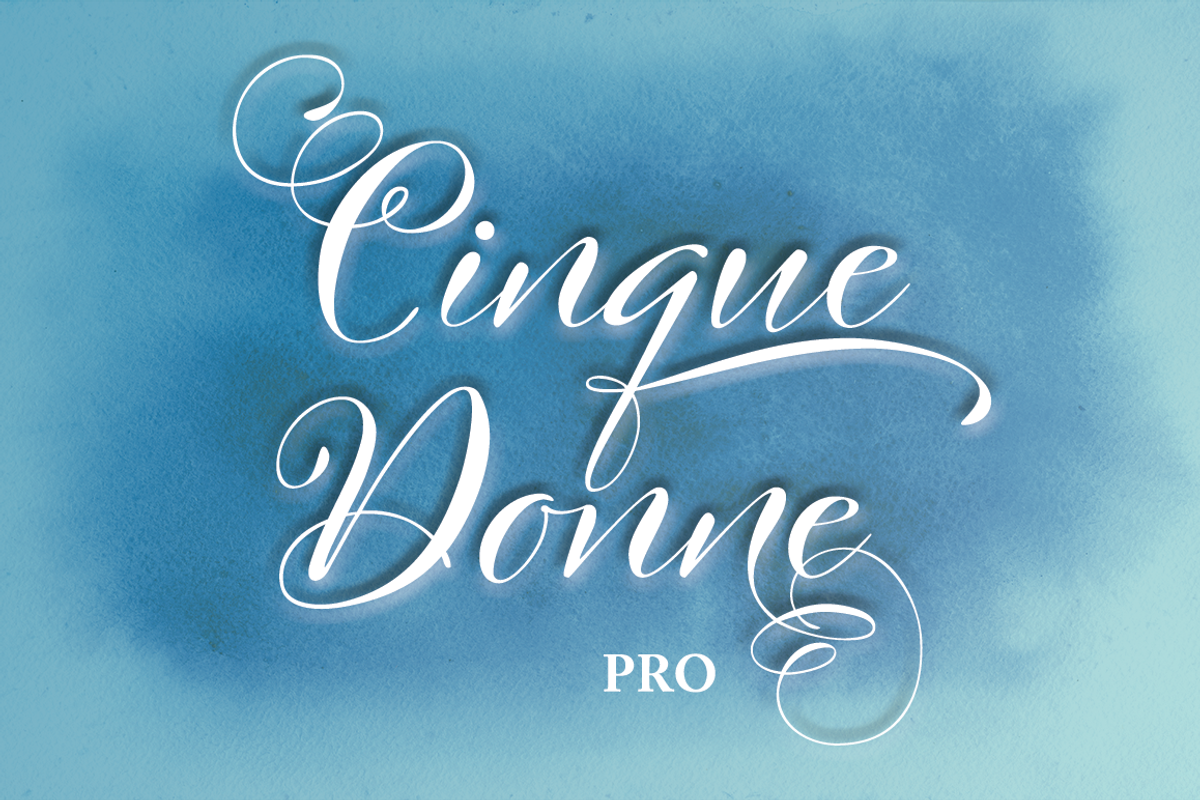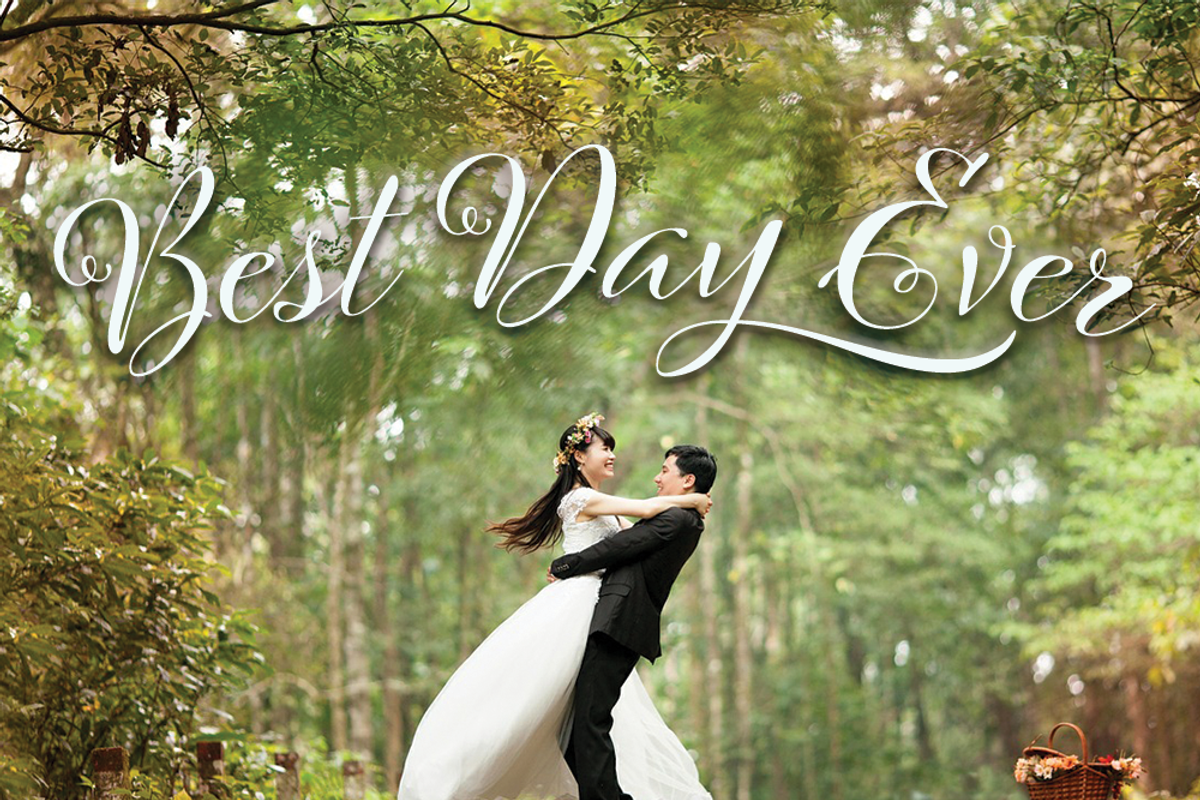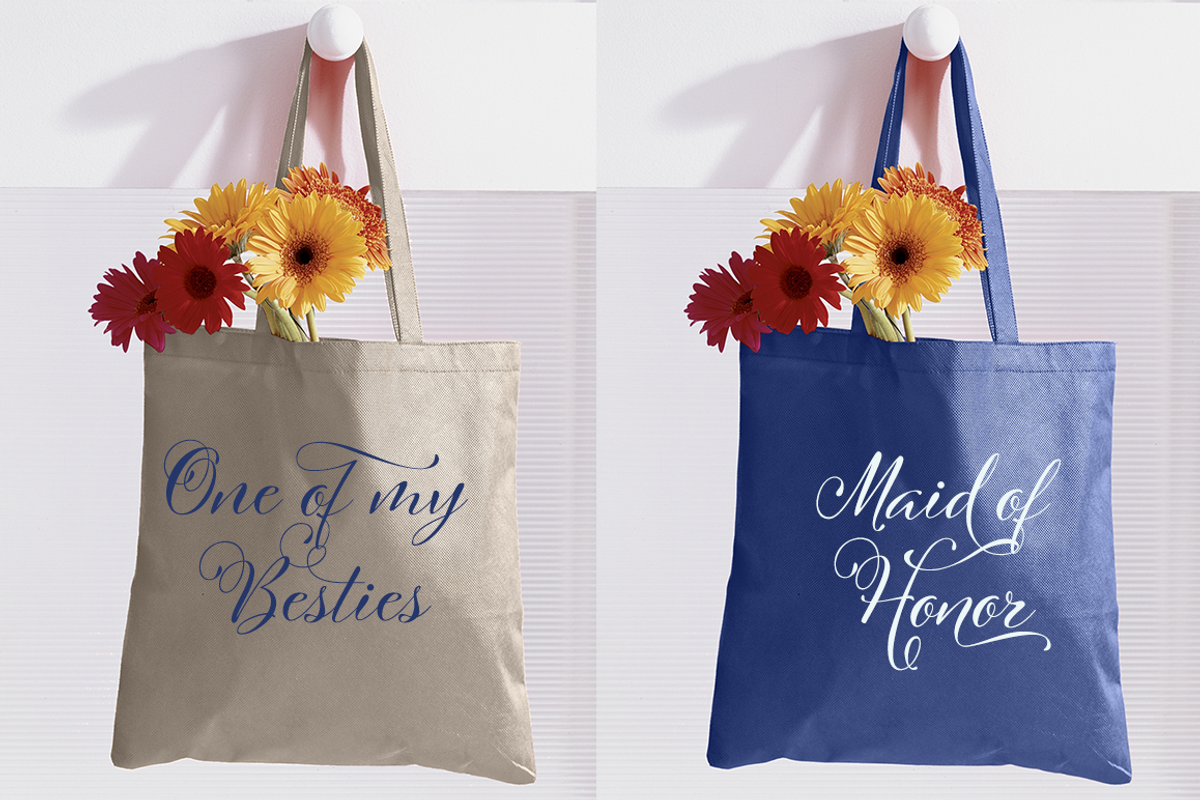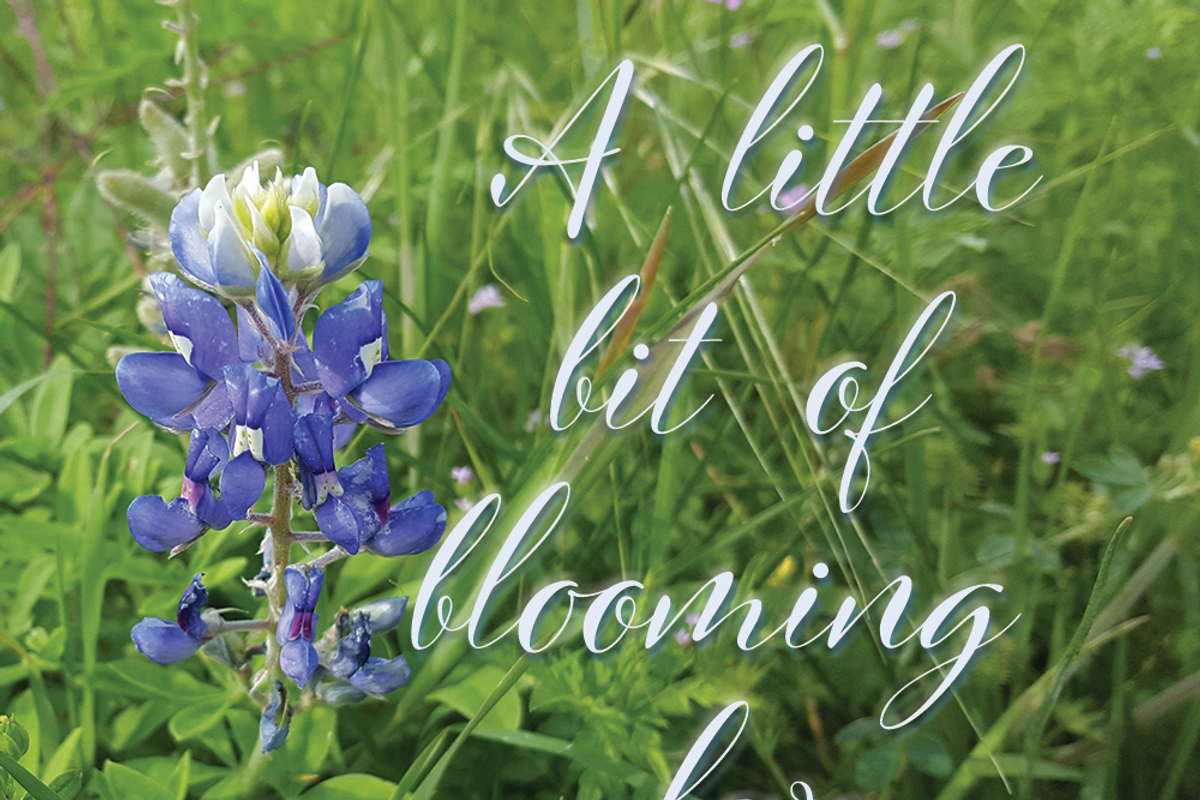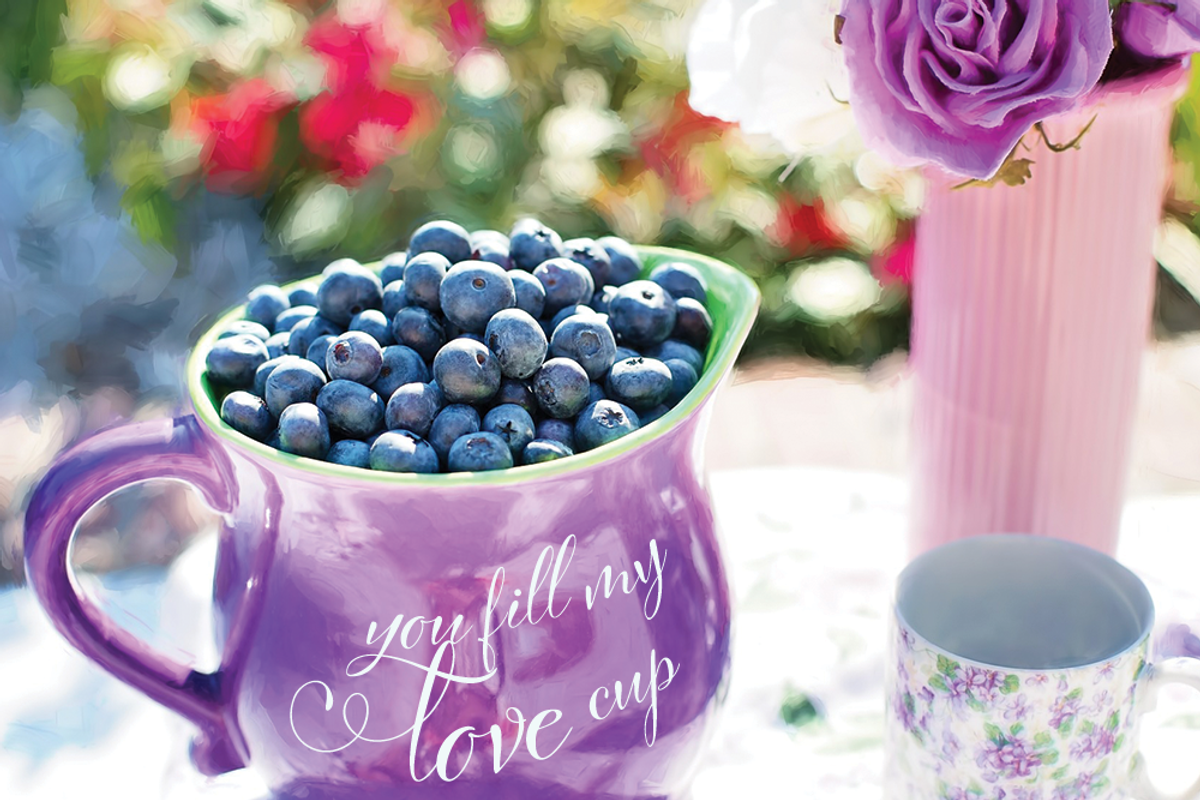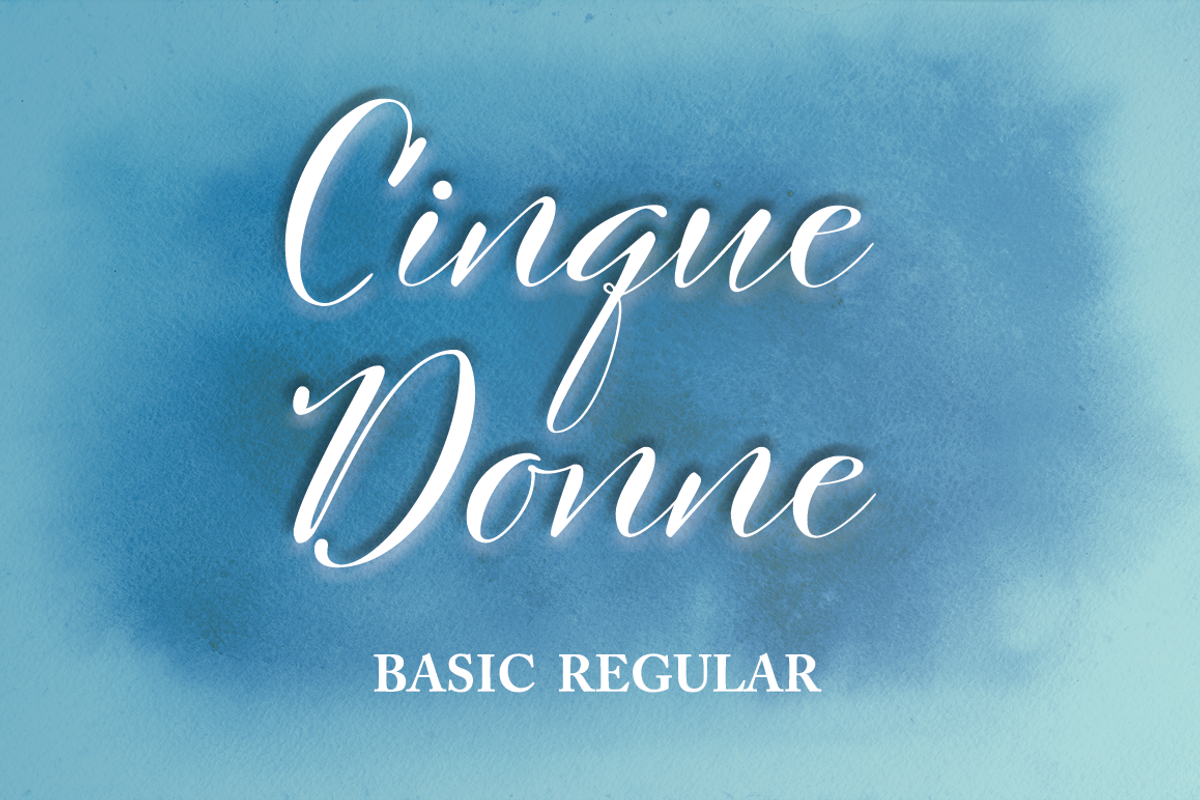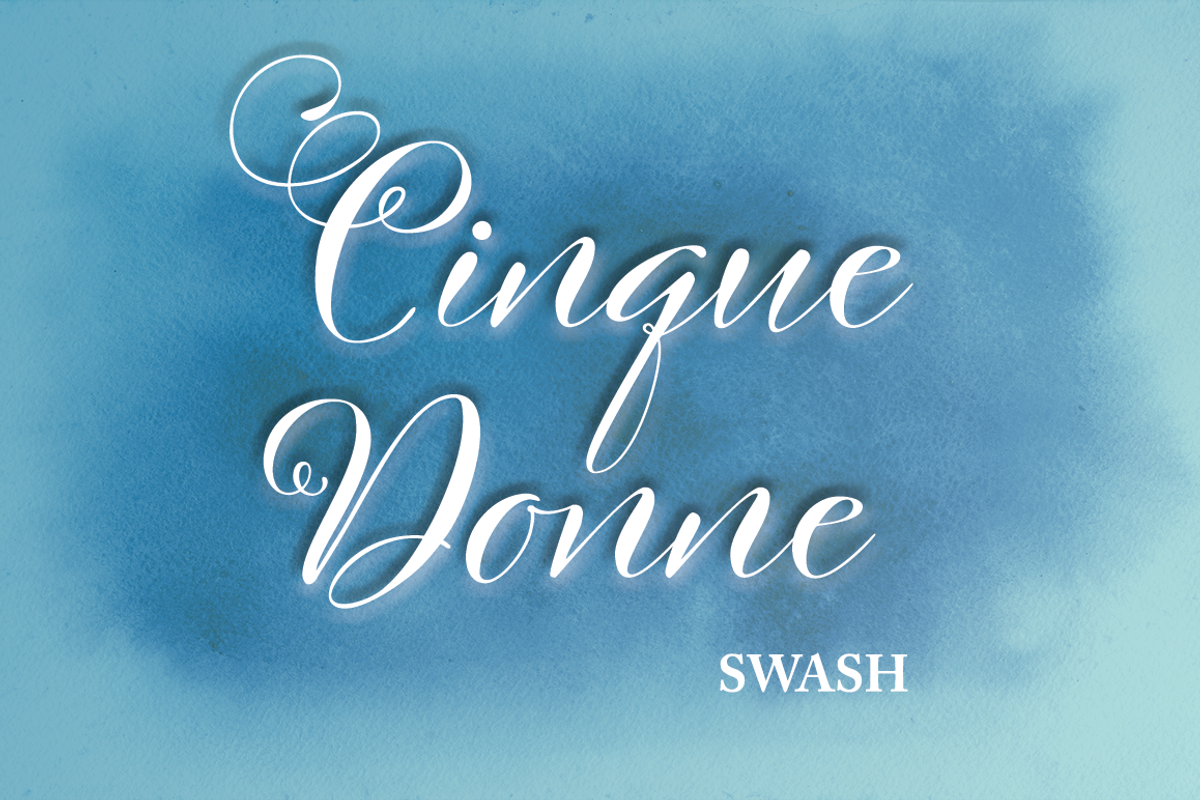
Cinque Donne Font Family
The Cinque Donne Font Family includes ALL of the fonts in the family: Cinque Donne Pro, Cinque Donne Swash, Cinque Donne Basic Bold and Cinque Donne Basic
Smooth and modern with a classic twist, Cinque Donne means “Five Women” in Italian. It was inspired by the five sisters in my family as well as a group of five of my besties from high school friends, aka “The Club Girls”.
Cinque Donne Pro has all the bells and whisltes! There are 3370 glyphs including double-letter ligatures to make your typing look more natural. Each letter of the alphabet has a large number of alternates allowing you lots of different looks. It also has Roman Numerals, Ordinals, Fractions, and the small words "and, No., the and to."
There is a set of unique letters that give it a modern, funky feel. You can check them out in one of the graphics above.
Cinque Donne Swash is a smaller version of the Pro with 1141 glyphs. It includes:
4 Full Sets of Upper Case Letters A-Z
5 sets of Lower Case Letters a-z -Numbers, Roman Numerals, Ligatures, Ordinals, Fractions, 3 Ampersands, Small words"and, No., the and to" and double-letter ligatures to make your typing look more natural.
Cinque Donne Basic and Cinque Donne Basic Bold contain 499 glyphs including double-letter ligatures to make your typing look more natural.